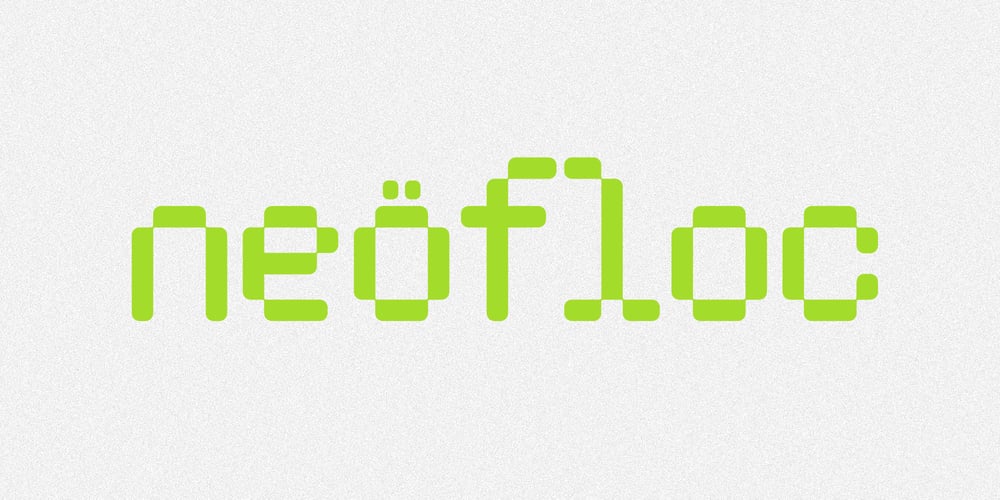
Neofloc Rounded Font Family was designed by Darhilen and published by Owl king project. Neofloc Rounded contains 9 styles and family package options. Neofloc FontsInspired by ancient technology such as games in the past, where the font is very unique. This font was created by giving a smoother touch to the edges of each letter, this will give it a more modern touch, and more than that, it looks dynamic. Neofloc is made in 9 weights, this is to make it easier to use in exploration, Neofloc works well for logos, short sentences, and titles. It doesn’t stop there, several letter combinations provide alternatives such as the letters “i, s, and the number 0. I think this is the time for you to try the Neofloc font. If you like things that look modern, unique, technological, or even retro, I hope Neofloc can provide new experiences in designing projects.Happy designing